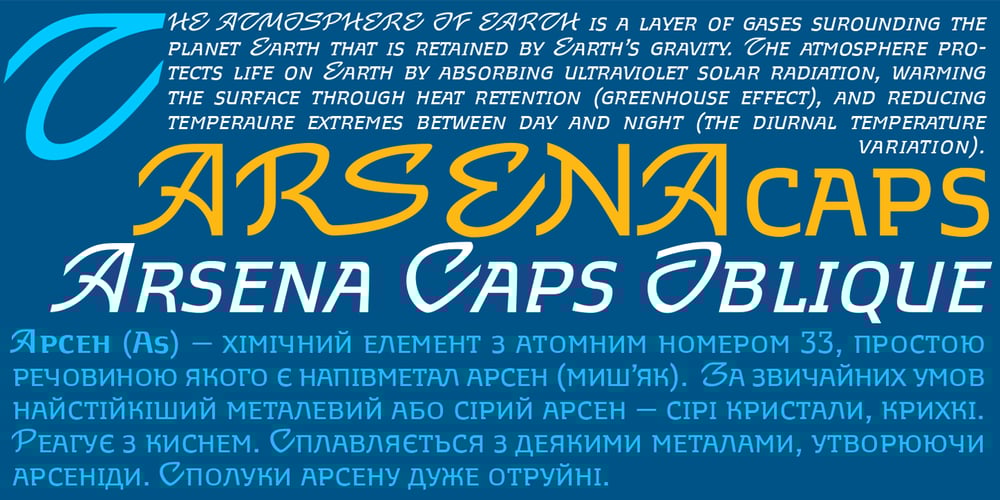
Arsena Font Family was designed by Viktor Kharyk and published by Apostrof. Arsena contains 4 styles and family package options. The font Arsena was designed for a contest on the creation of modern Ukrainian business font “Arsenal” and awarded the 3rd prize. A little squared figure which is enlightened from the middle, unobvious, but the existing modular grid, simplified, but not a primitive design of letters, mathematically defined optimum inclination angle, counterbalanced ratio of thickness, an optimum spacing and a manual kerning – all of this is for the best reproduction in any conditions as well as for the maximum clarity and readability. Asymmetric slab serifs make the font Ukrainian and at the same time have a modern and dynamic look. Besides its highlighting function, Italics also have an independent assignment. The Italics are made under calligraphic traditions in a modern style of mono-thickness (but optically compensated) and in particular, in combination with alternative initials of the same style and it is relevant to use it in a private letter, or in the design of the official greetings, etc. It is also promoted by four typographic ornamental motives. Due to the above-mentioned qualities this font can be used successfully for a wide range of tasks – from business to mass media, publishing, advertising and accidental.